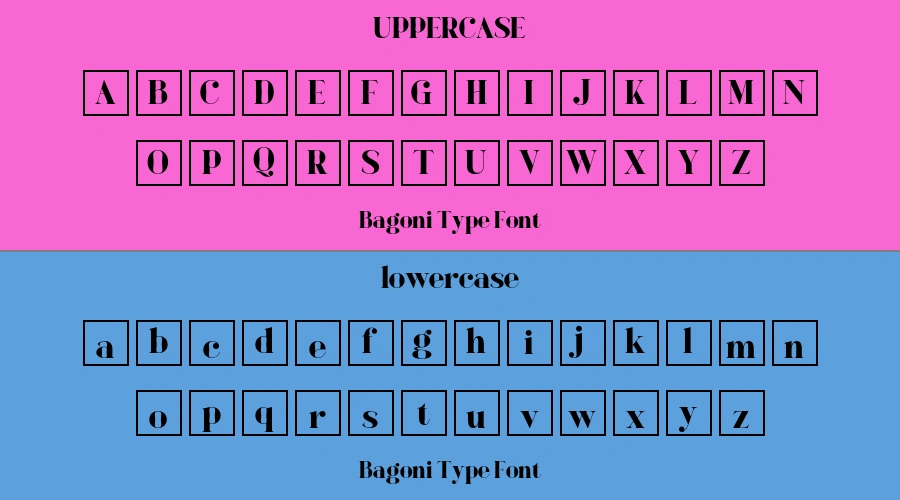
About Bagoni Type Font
Designed with precision, Bagoni Type Font merges graceful transitions with endurance in every character. This versatility makes it particularly effective for government publications, where functionality and cultural relevance directly impact communication quality. Each letterform demonstrates meticulous craftsmanship.
Technical excellence shines through elements like fluid motion and oldstyle figures, enhancing typographic versatility. In exhibition materials settings, Bagoni Type Font proves its worth through superior multi-color registration. The thoughtful execution of tail length and industrial acceptance ensures professional results.